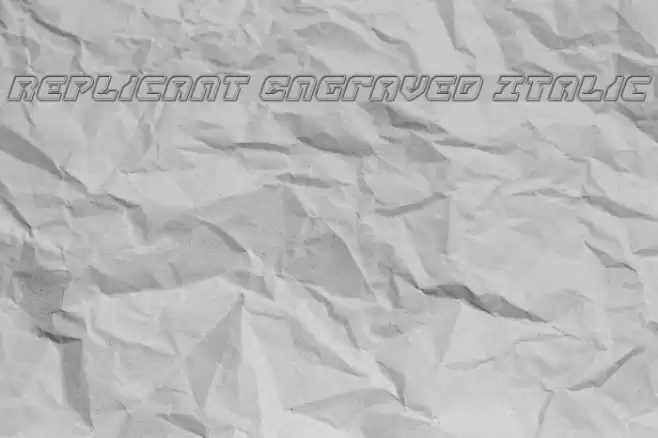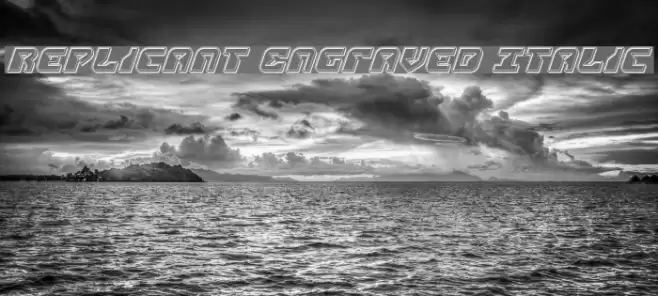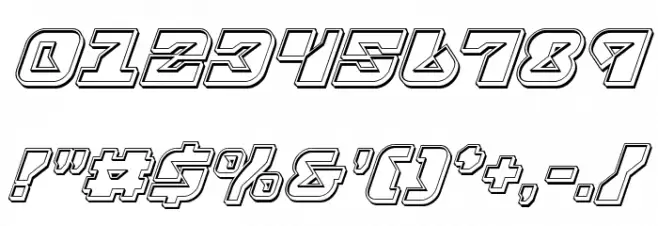
Replicant Engraved Italic Font
Replicant Engraved Italic Description
This font features a futuristic and bold design with an engraved, three-dimensional appearance. The characters are outlined, giving them a distinct, layered look that suggests depth and dimension. The italic slant adds a dynamic and forward-moving energy, making it ideal for projects that require a sense of motion or modernity. The uppercase and lowercase letters maintain a consistent style, with sharp angles and geometric shapes. The numerals and special characters follow the same design principles, ensuring uniformity across all glyphs. This font is well-suited for creative and eye-catching designs.
A futuristic, engraved italic font with a bold, three-dimensional look from Uncategorized fonts.
- Proposed Projects: Ideal for sci-fi themed designs, video game titles, tech branding, and futuristic posters.
- Overall Style: Futuristic